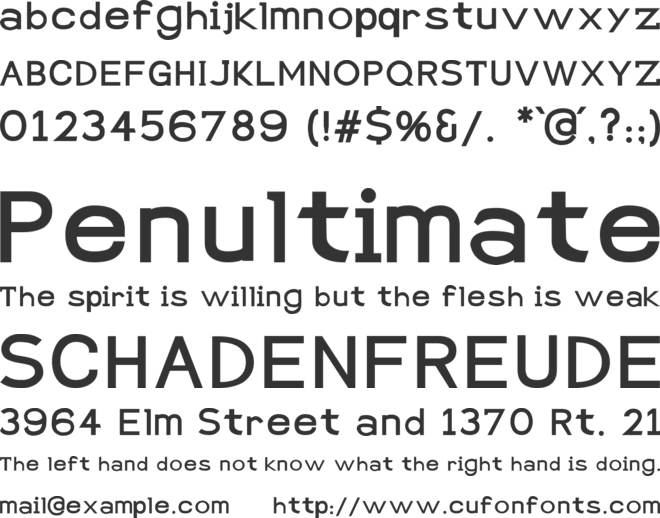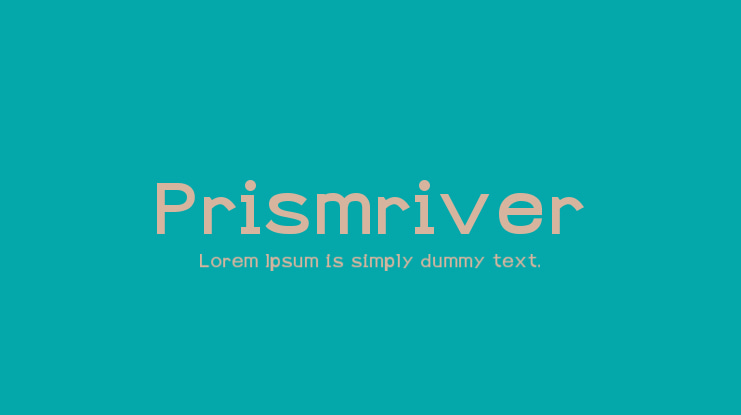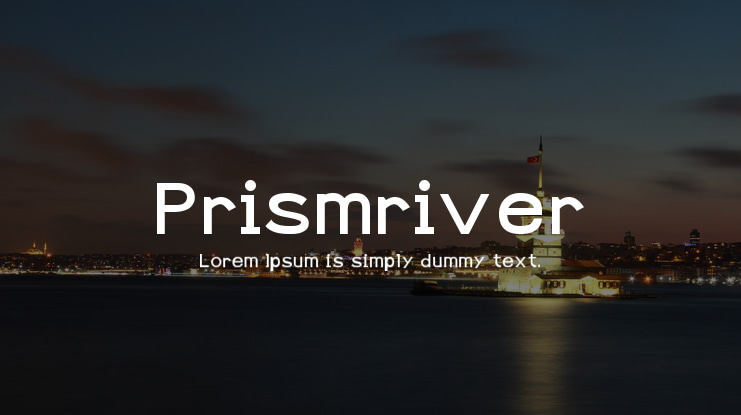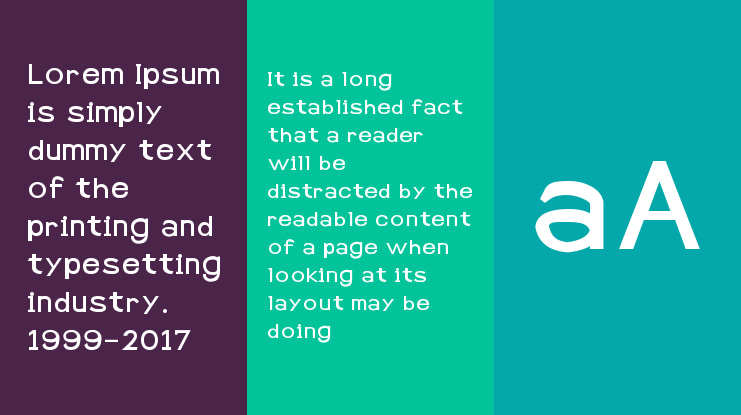
Prismriver Font
Prismriver is based off of Armata. It was named after the Prismriver Sisters from the Touhou Project series. It is a masculine rock-band-inspired mystical grotesque. Please enjoy another freeware font.